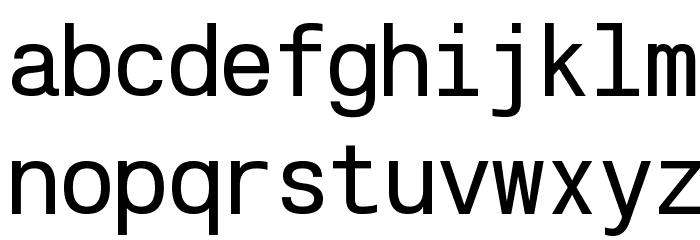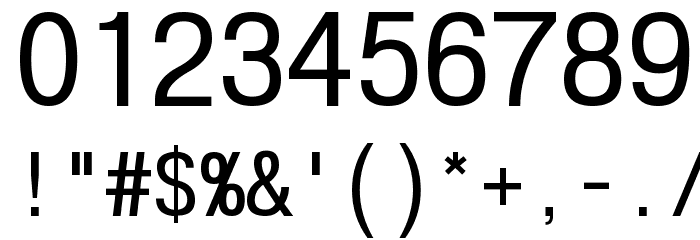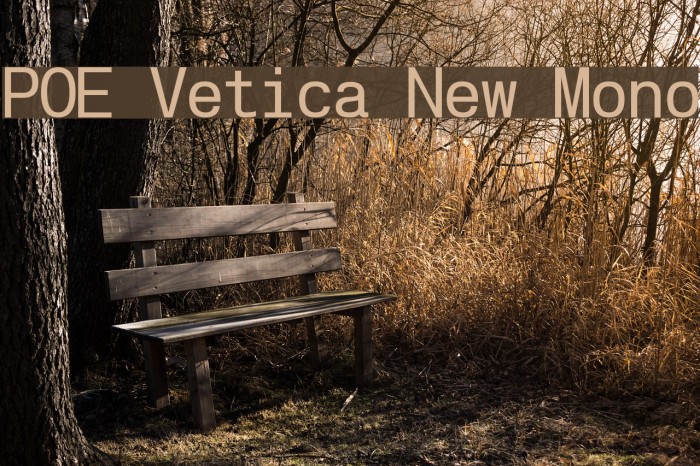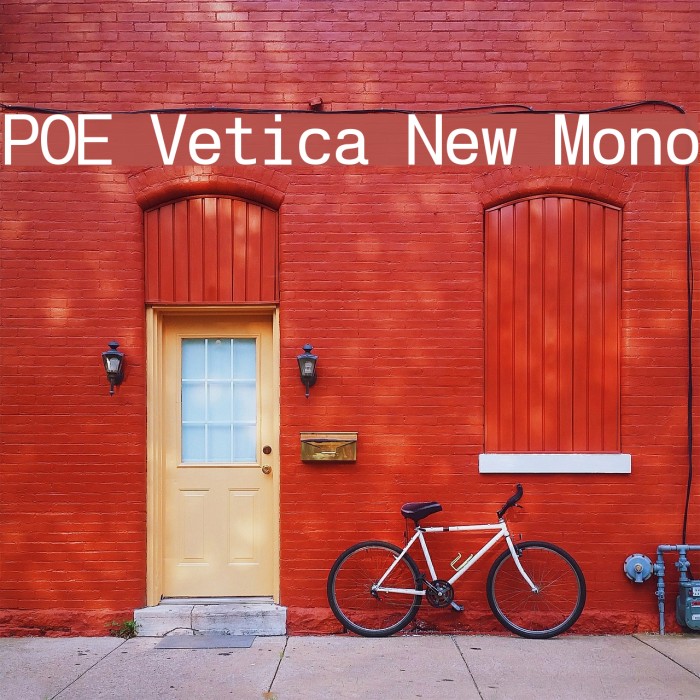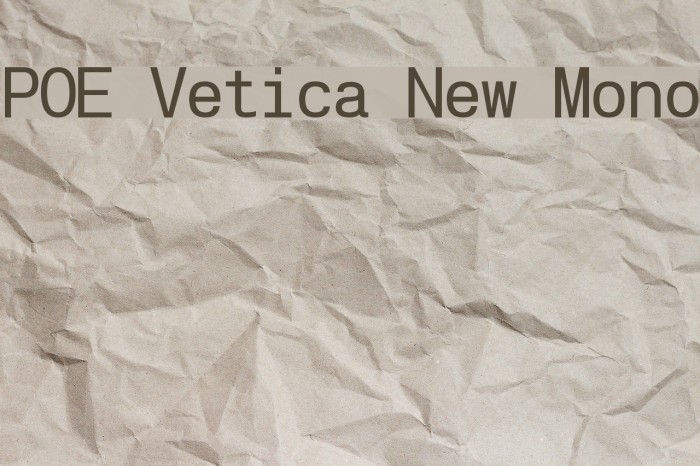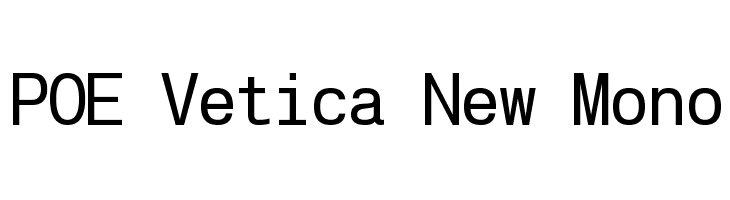
POE Vetica New Mono Font
This typeface exhibits a clean, modern aesthetic with a monospaced design, ensuring each character occupies the same amount of horizontal space. The uniformity in width provides a structured and orderly appearance, making it ideal for coding and tabular data. The characters are well-defined with a geometric influence, featuring straight lines and precise curves. The uppercase letters are bold and assertive, while the lowercase letters maintain a consistent height, enhancing readability. The numerals are clear and distinct, and the special characters are easily recognizable, adding to the font's versatility.
A modern, monospaced typeface with a clean and structured design.
- Proposed Projects: Ideal for coding environments, technical documentation, and data tables where alignment is crucial.
- Use Case: Coding, Technical documentation, Data tables